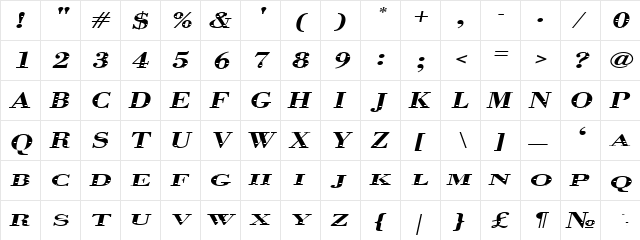
Graphis-Oblique Heavy Font Preview
Graphis-Oblique Heavy
Graphis-Oblique Heavy Font Details
Design Context for Graphis-Oblique Typeface
Graphis-Oblique takes a measured approach to typography — its balanced proportions and neutral character make it a reliable workhorse for both digital and print work. The dynamic lean of this cut emphasises speed and emphasis in any layout.
Pro Tip: Use Graphis-Oblique for emphasis, pull quotes, and subheadings where its slanted energy can add rhythm to the layout.